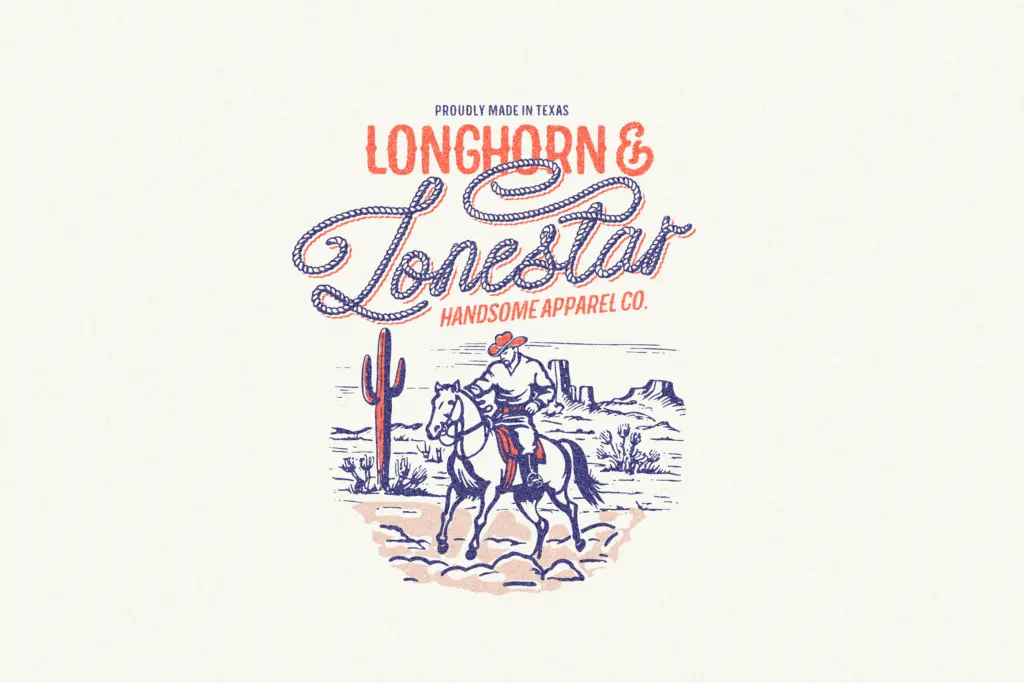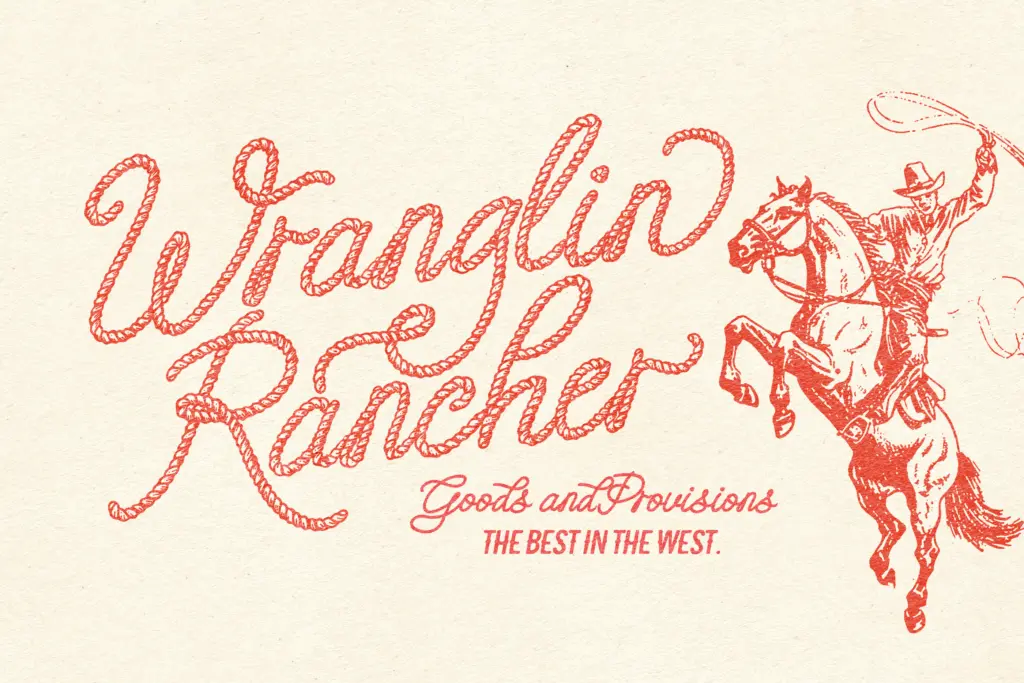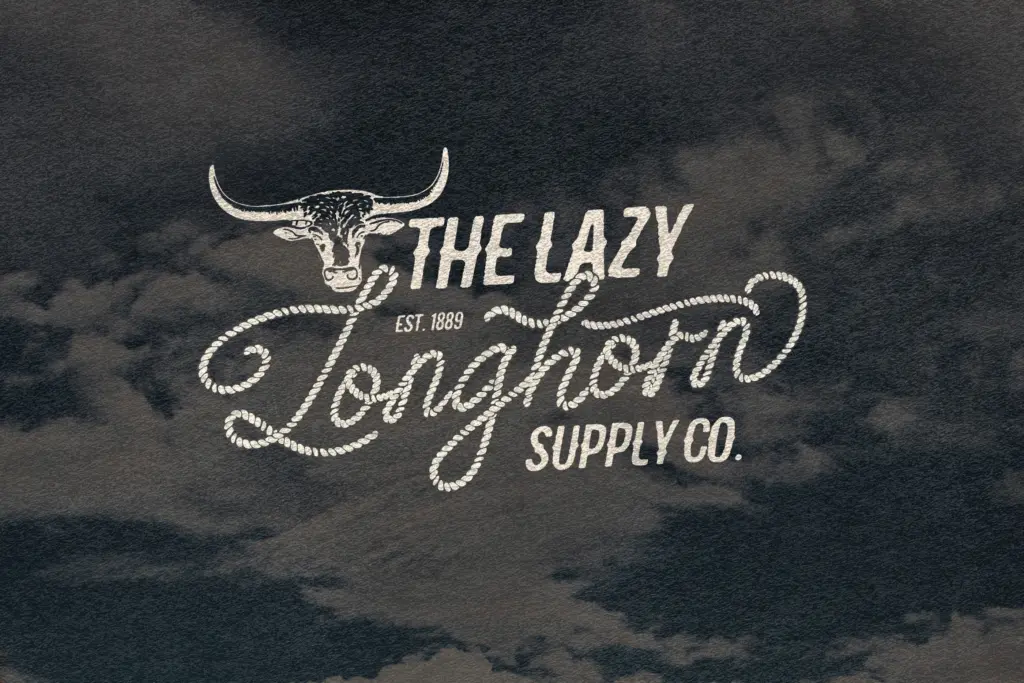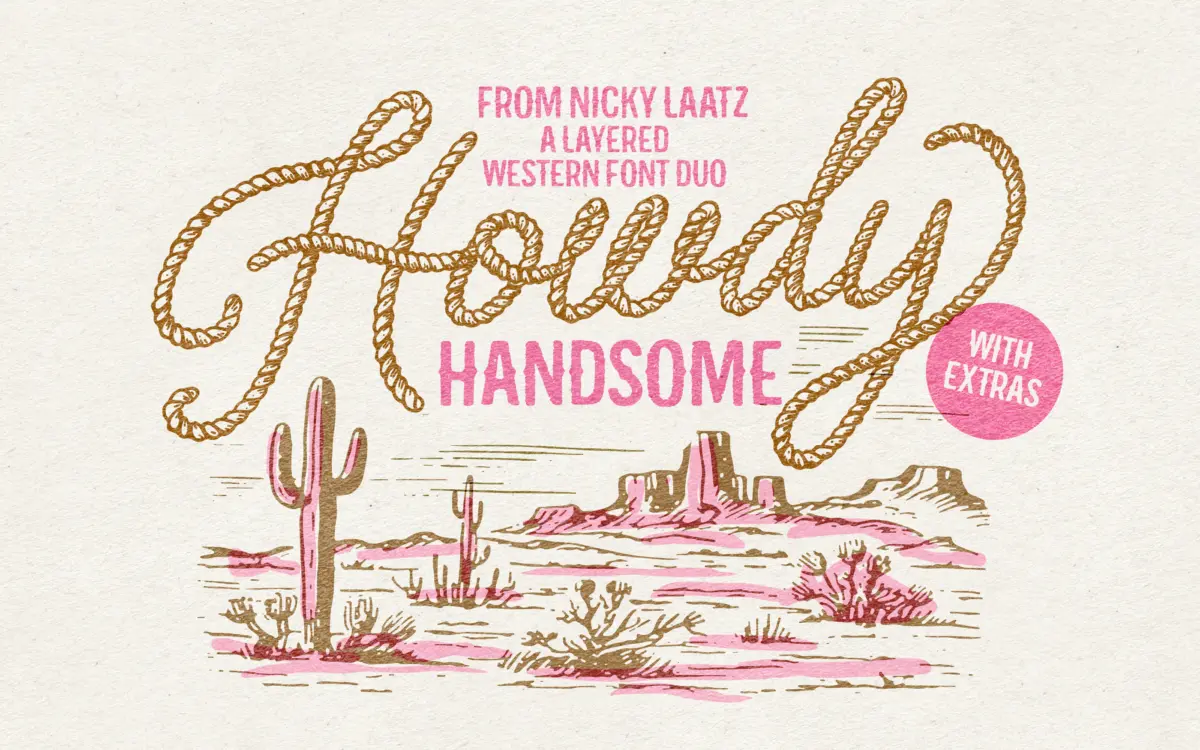
Howdy Handsome: A Rope Script and Western Sans Duo for Cowboy-Themed Branding
Howdy Handsome is built around a rope script — a monoline connected cursive with a twisted, cord-like texture worked into the strokes, meant to evoke lasso rope rather than pen or brush. It leans into western signage tradition: exaggerated entry strokes, looping swashes on ascenders and descenders, and an oblique slant that gives it forward motion. An upright cut is included for anyone who finds the slant too rodeo-poster for their layout. Paired with it is an all-caps western sans, blocky and geometric with small median spurs on letters like E and F, a detail lifted straight from old ranch signage and saloon lettering. A slanted version of the sans is included too, which lets you keep both halves of the duo leaning the same direction if you want that.
Both faces are layered, meaning the letterforms are built across multiple style/fill layers rather than as flat single-color outlines. The script gets seventeen of these layering options, the sans nine. That’s the real design premise here: you’re not picking one drawing, you’re stacking a handful of them (shadow, highlight, outline, texture layer) to build a badge or logotype effect, in the vein of vintage western emblem lettering.
The script comes loaded with OpenType alternates, ligatures and swash characters, which is where a rope script lives or dies — without enough variation, connected swash letters repeat visibly and the rope effect looks mechanical. The alternate set here is generous enough to break that up, provided you’re working in software that actually exposes OpenType features. Illustrator or Photoshop CC2018 and later are named as requirements, and that matters: without OpenType access you get the default glyphs only, none of the swash or ligature variety that makes the script worth choosing over a simpler cursive. The characters are also PUA-encoded as a workaround for software that doesn’t support OpenType features natively, though there’s no reference sheet provided specifically for Canva users, so anyone working there will need to hunt for glyphs manually or stick to the base character set.
A glyph reference sheet is included to help sort through the layering options and alternates, which is a necessary inclusion given how many stacked variants exist across both faces. The bonus ‘Ranchy Extras’ — a set of western graphic vectors in Illustrator, EPS, layered Photoshop, PNG and SVG formats — round out the package as supporting clip art rather than typographic material proper.
This is a theme font family, and it knows it. It’s built for cowboy and western-branded work: rodeo posters, ranch and ranch-wedding stationery, …brewery or barbecue branding leaning into Americana, kids’ western party invitations, badge-style logos for anything cowboy or cowgirl adjacent. The layered construction makes it well suited to logo and badge design where you want a stacked, dimensional letterform rather than a flat one. It is not a body text face and isn’t trying to be — the rope texture and swash work only read at display sizes, and the all-caps sans has no lowercase, so it’s headline and label use only. Anyone needing a western feel without full OpenType software support will lose a good portion of what makes the script distinctive.
- The rope-texture script has enough OpenType alternates and ligatures to avoid looking repetitive
- The layered construction genuinely suits badge and emblem-style logo work
- The all-caps sans complements the script well with a distinct but compatible western character
- Full functionality depends on OpenType-capable software; Canva users get no dedicated reference sheet
- Extremely theme-locked — not a typeface you reach for outside western or rustic branding
Howdy Handsome does one thing — western badge and signage lettering — with real craft in the rope-texture script and spurred sans. It needs OpenType-capable software to show its best features, and its usefulness drops sharply outside cowboy-themed work.